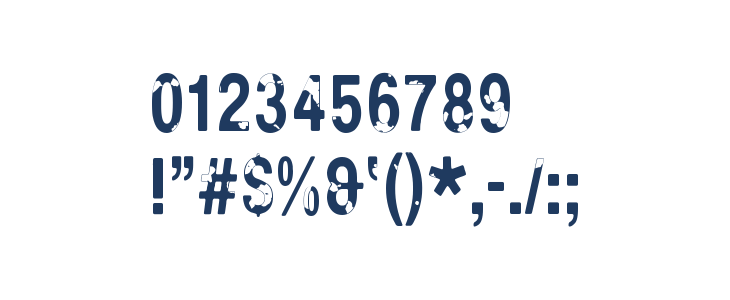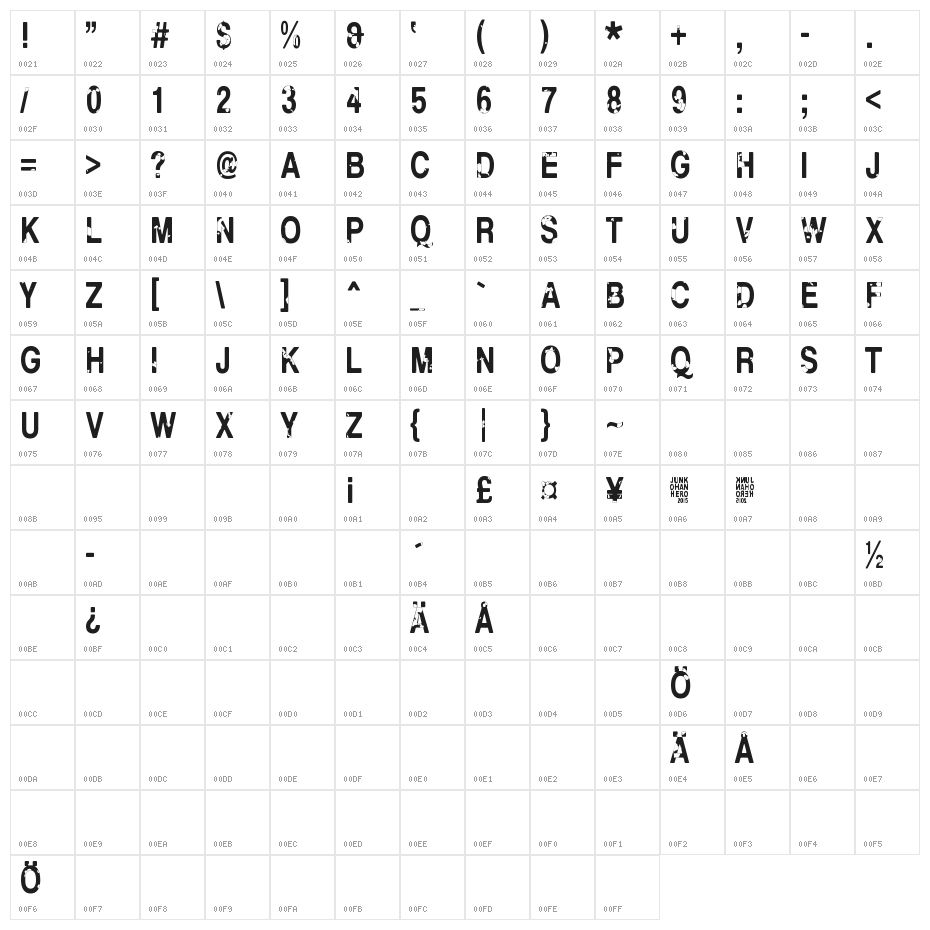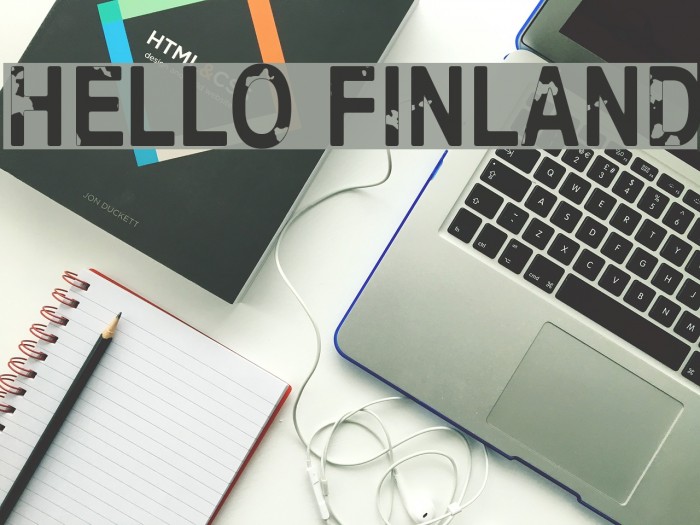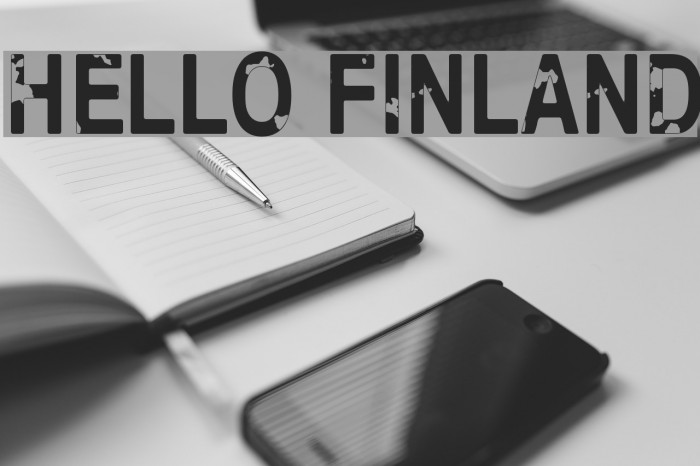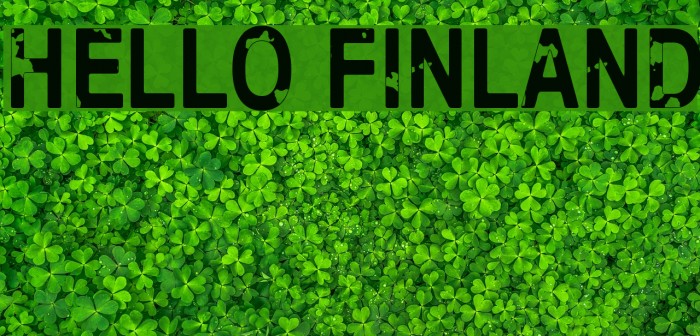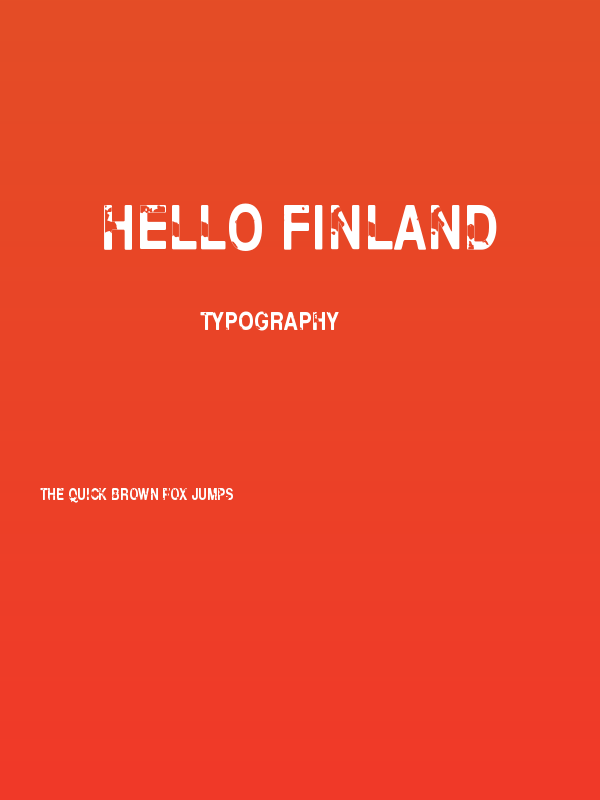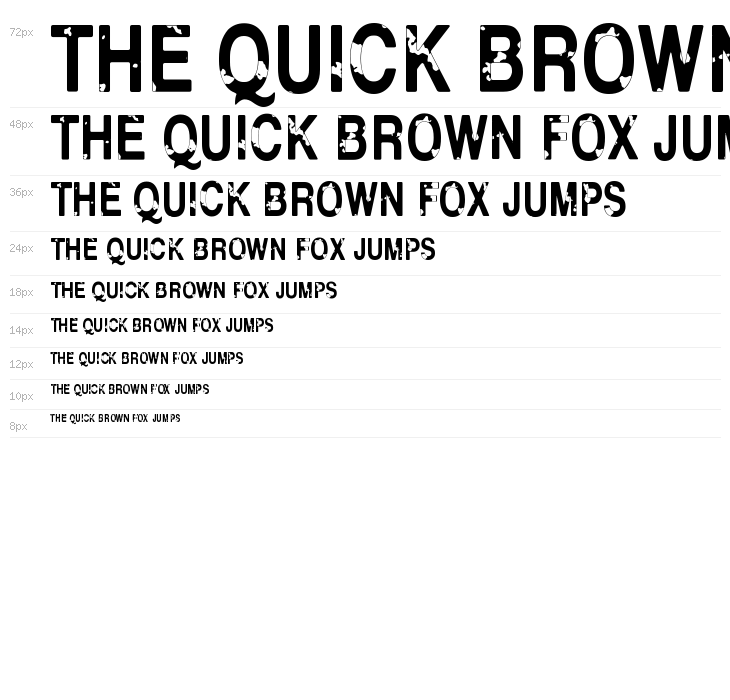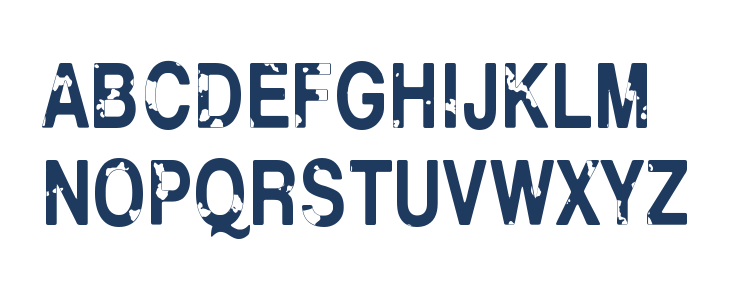
Hello Finland Font
Hello Finland Description
This font features a bold, distressed style with a modern, urban aesthetic. The characters are uppercase and numerals, each exhibiting a unique, weathered texture that gives the appearance of being worn or eroded. The boldness of the letters ensures high visibility, making it suitable for impactful designs. The distressed effect adds a layer of depth and character, making it ideal for projects that require a rugged or vintage feel. The spacing between characters is normal, allowing for clear readability despite the textured design. This font is perfect for creating eye-catching headlines, posters, or branding materials that aim to convey a sense of edginess or authenticity.
| Overall Style | Modern, Vintage |
| Use Case | Headlines, Posters, Branding |
| Proposed Projects | Ideal for posters, branding, and headlines that require a rugged, vintage feel. |